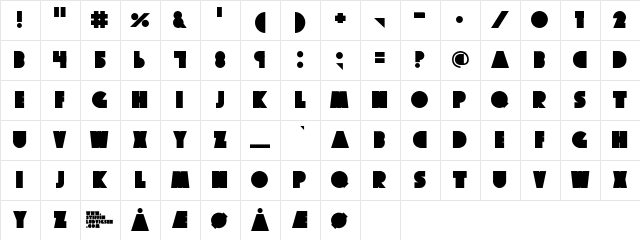
Complete Big Fat Ugly Cow Regular glyph index. Displaying only characters natively supported by Big Fat Ugly Cow Regular font.
Big Fat Ugly Cow is a composed and adaptable typeface that performs quietly and consistently across a wide range of design contexts.
Who designed the Big Fat Ugly Cow Regular font?
This font was published by Steffen Ludvigsen. Check the technical specs section for copyright and designer details.